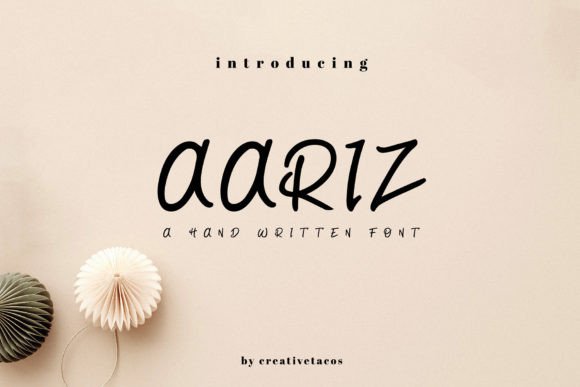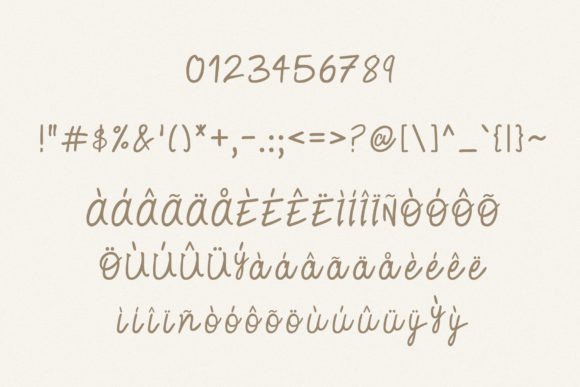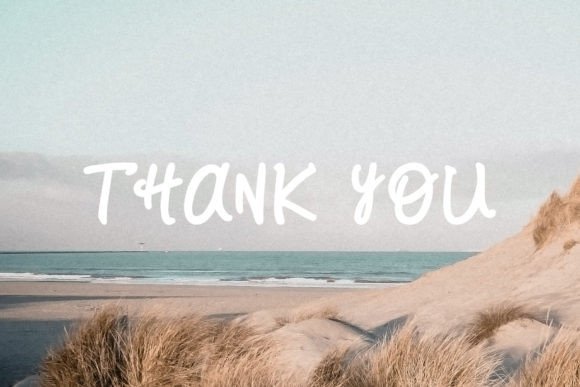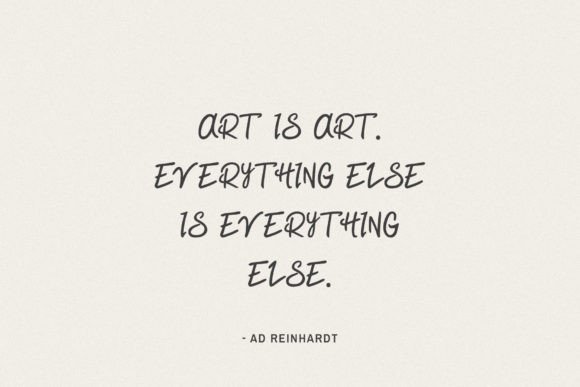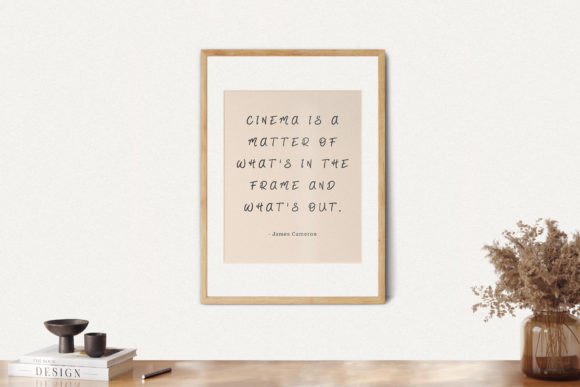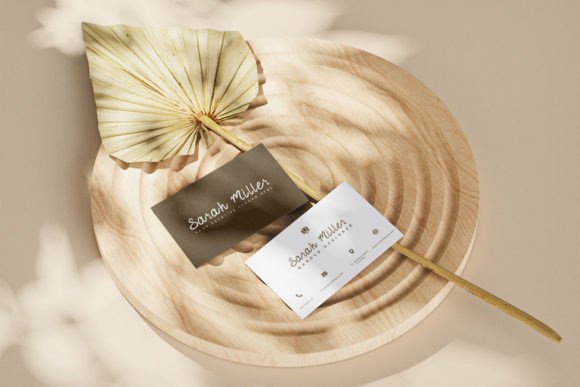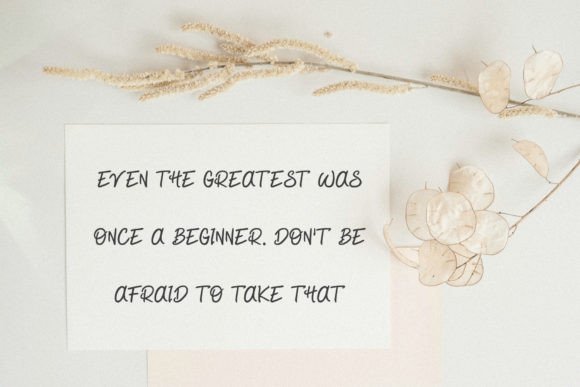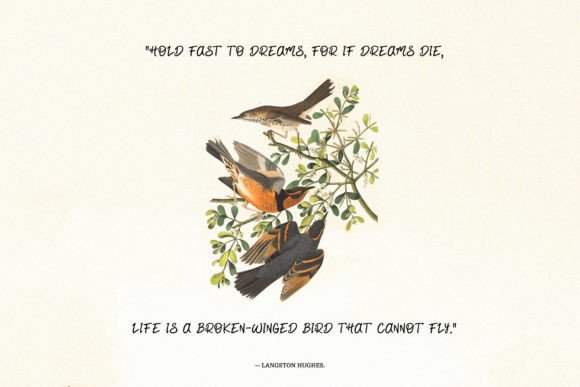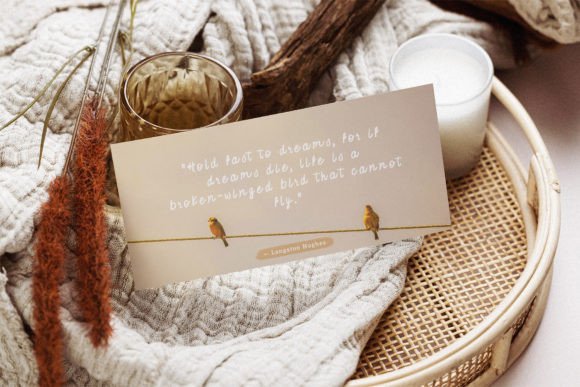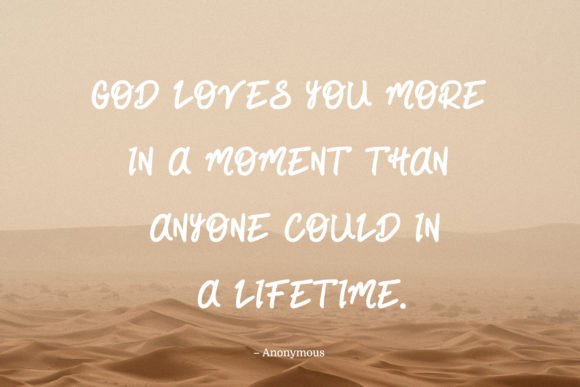
Aariz Handwritten
About Aariz Handwritten
Aariz is a delicate, cute, and stylish handwritten font that will elevate your forthcoming projects. Aariz font is great for various projects such as presentations, headlines, lettering, posters, invitations, and any type of creative project that requires a distinctive touch.